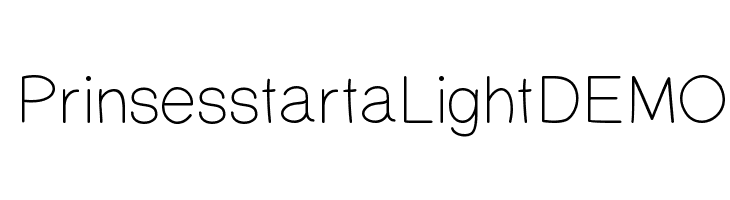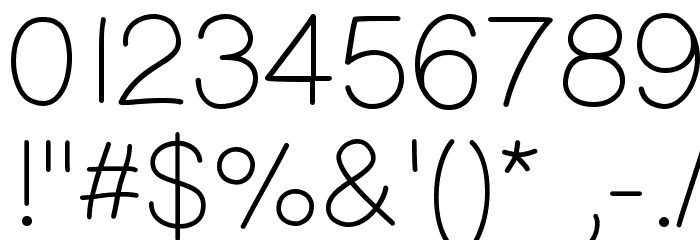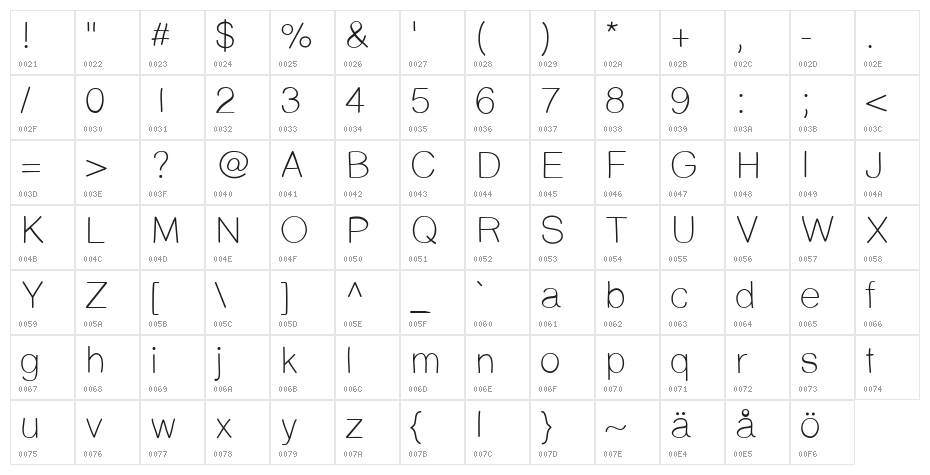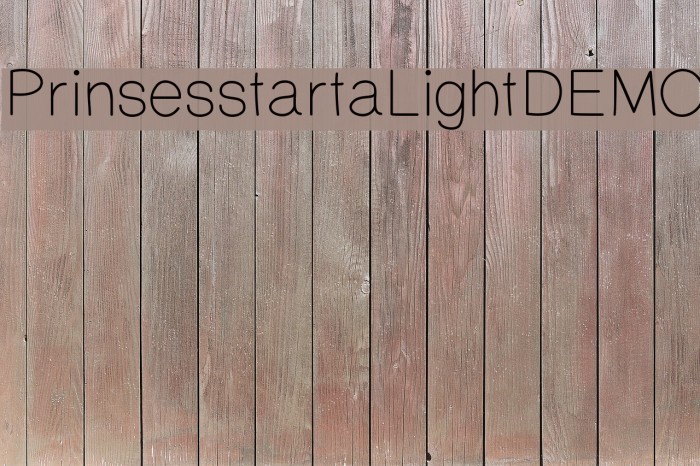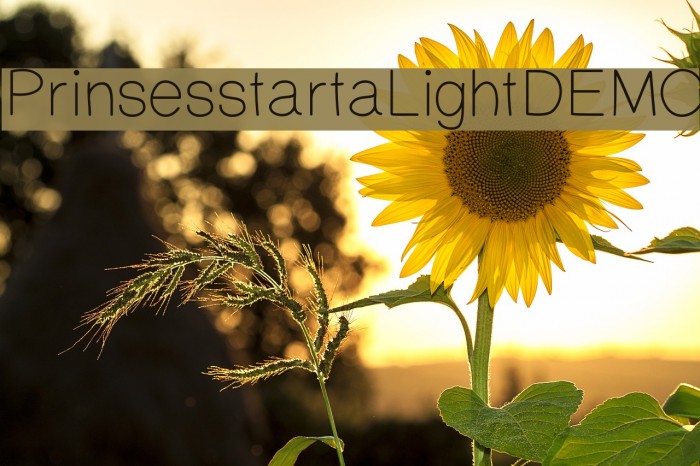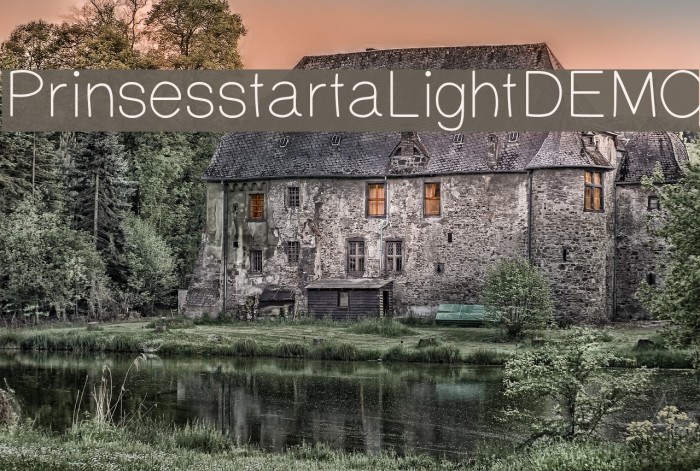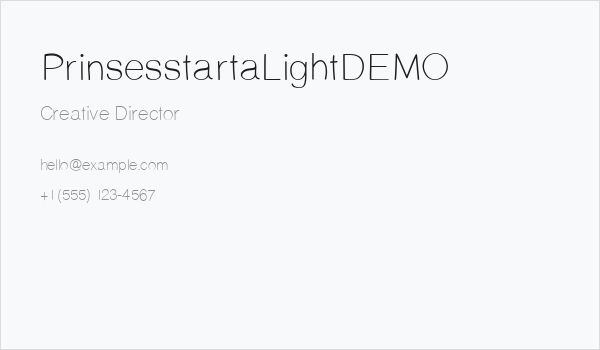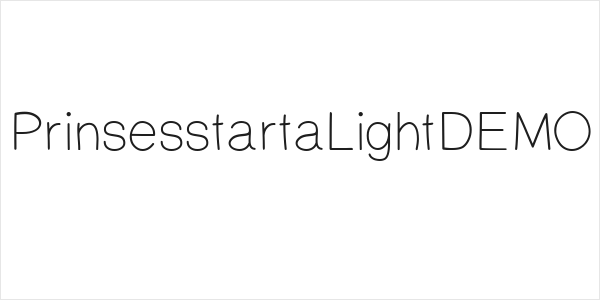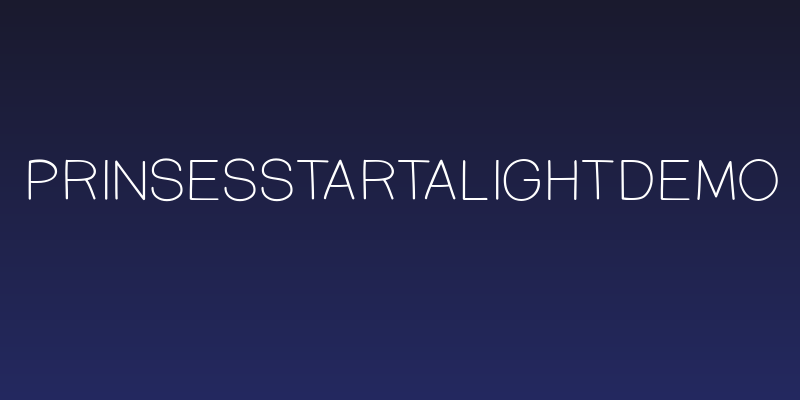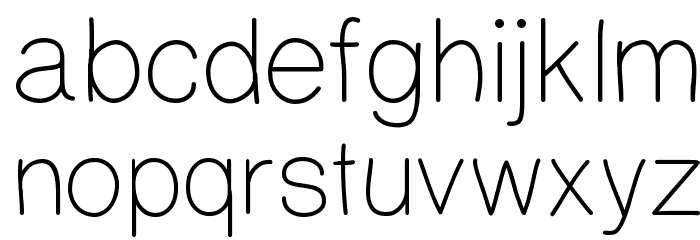
PrinsesstartaLightDEMO Font
PrinsesstartaLightDEMO Description
This font features a clean and minimalist design with a modern aesthetic. The characters are evenly spaced and have a uniform stroke width, contributing to its legibility and simplicity. The uppercase and lowercase letters are well-proportioned, with rounded edges that add a touch of softness to the overall appearance. The numerals and special characters maintain the same design consistency, making it versatile for various applications. Its light weight and open character forms make it suitable for both digital and print media, offering a contemporary look that is both stylish and functional.
| Proposed Projects | Ideal for modern branding, user interfaces, minimalist posters, and editorial design. |